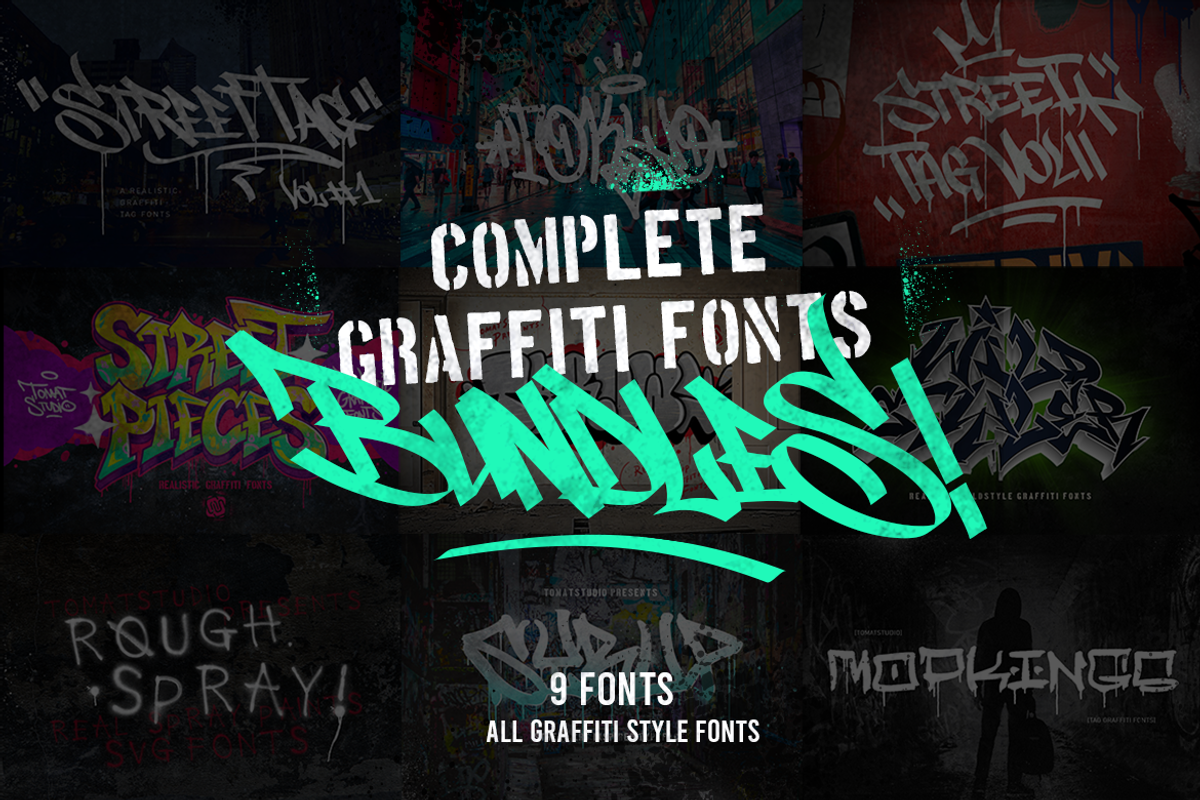
Complete Graffiti Font Bundles Free Download is a dynamic collection of bold, urban-inspired typefaces that capture the raw energy of street art. Perfect for edgy branding, hip-hop album covers, skate culture designs, apparel, posters, and event flyers, this bundle gives you a wide variety of graffiti styles—from wildstyle to handstyle tags.
Each font is packed with personality, featuring dripping effects, spray textures, and expressive strokes that bring attitude to your work. The bundle supports multilingual characters, includes multiple variations, and works seamlessly on both Mac and Windows platforms.